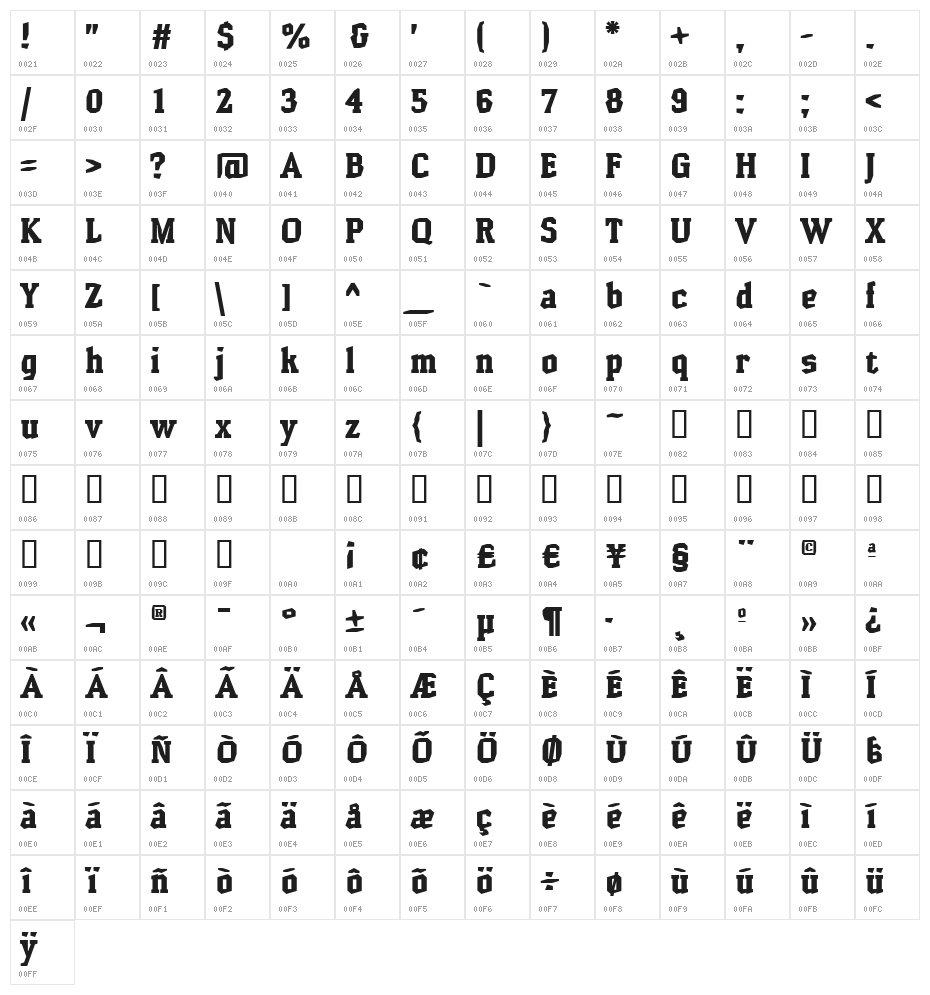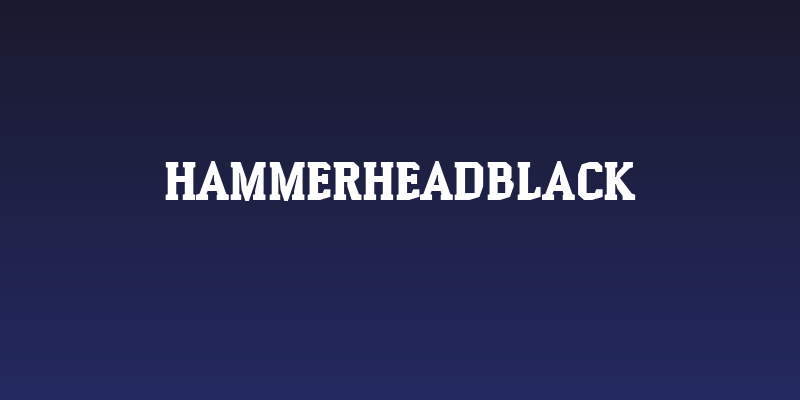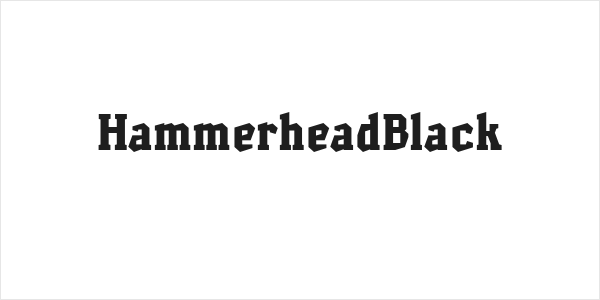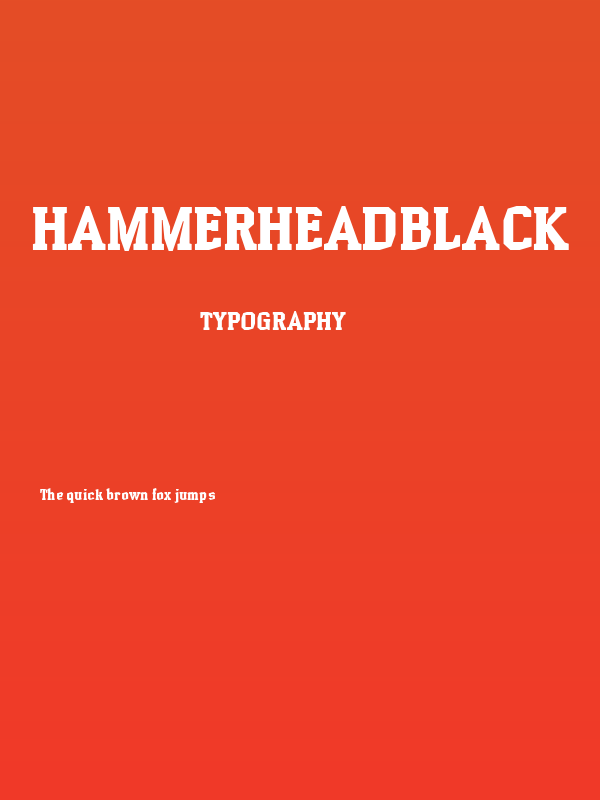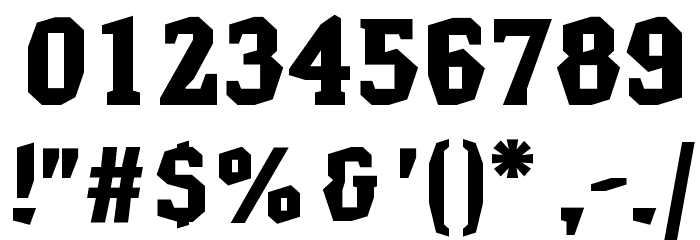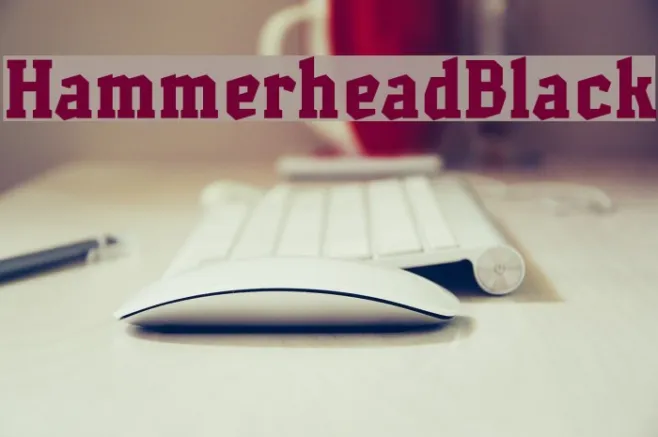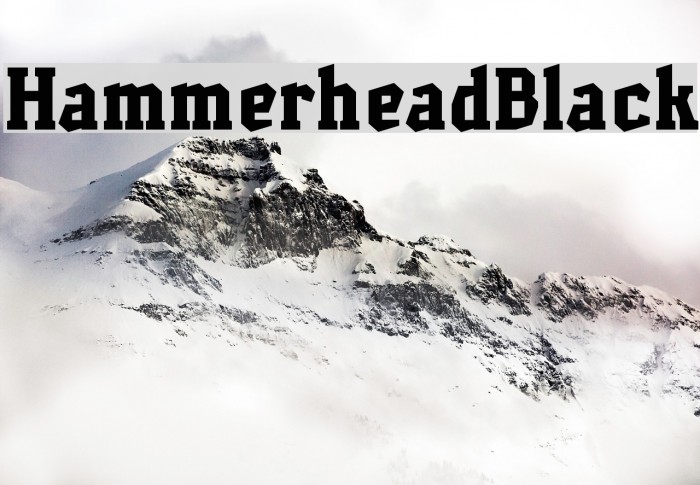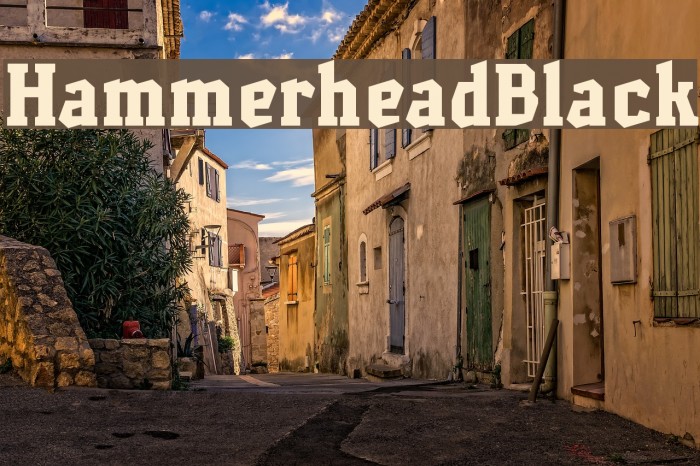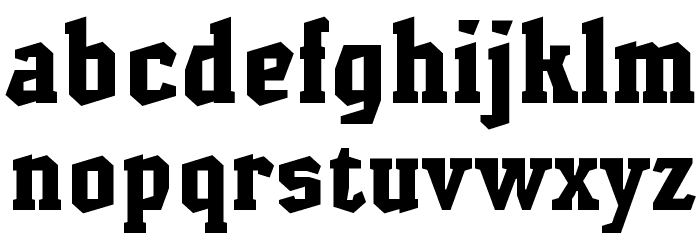
HammerheadBlack Font
HammerheadBlack Description
This font features a bold, angular design with strong geometric shapes and sharp edges. The uppercase letters are particularly striking, with a blocky appearance that conveys strength and impact. The lowercase letters maintain the same boldness, offering a cohesive look across different cases. Numbers and special characters are equally robust, ensuring consistency throughout. The font's style is reminiscent of industrial or sports themes, making it suitable for projects that require a powerful and assertive visual presence. Its distinct and commanding appearance makes it ideal for grabbing attention.
| Proposed Projects | Ideal for sports branding, industrial-themed designs, posters, and headlines. |